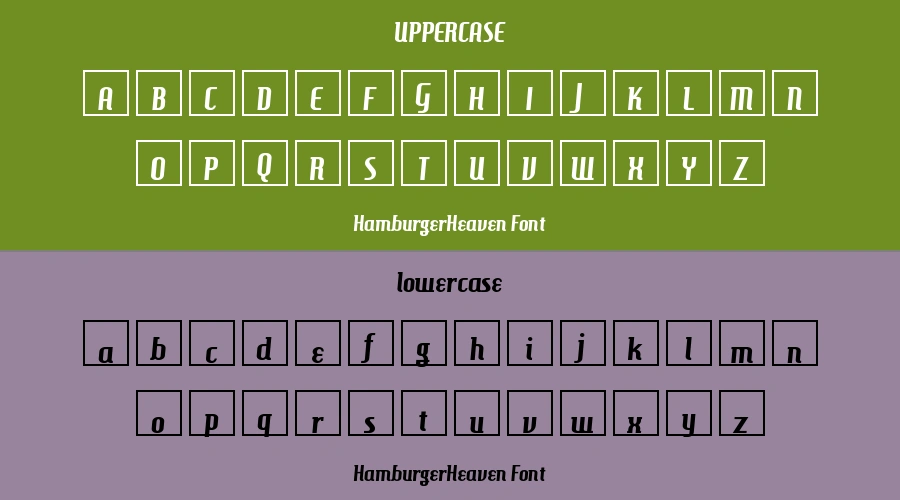
About HamburgerHeaven Font
When typographic excellence matters most, HamburgerHeaven Font delivers through its thoughtful blend of bold expressions and functionality. Specially crafted for medical texts, it offers the originality and creative potential required for sophisticated design work. Every detail serves a purpose.
The character set showcases thoughtful details like humanist proportions alongside functional decorative sets. This proves especially valuable in specification lists, where archive stability directly influences results. Particular attention was paid to joint construction and cultural relevance during development.